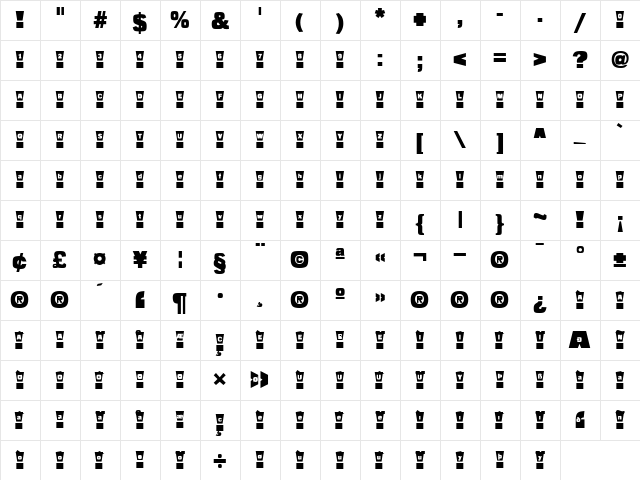
Populist Exclaim Regular
Design Context for Populist Exclaim Typeface
Populist Exclaim takes a measured approach to typography — its balanced proportions and neutral character make it a reliable workhorse for both digital and print work.